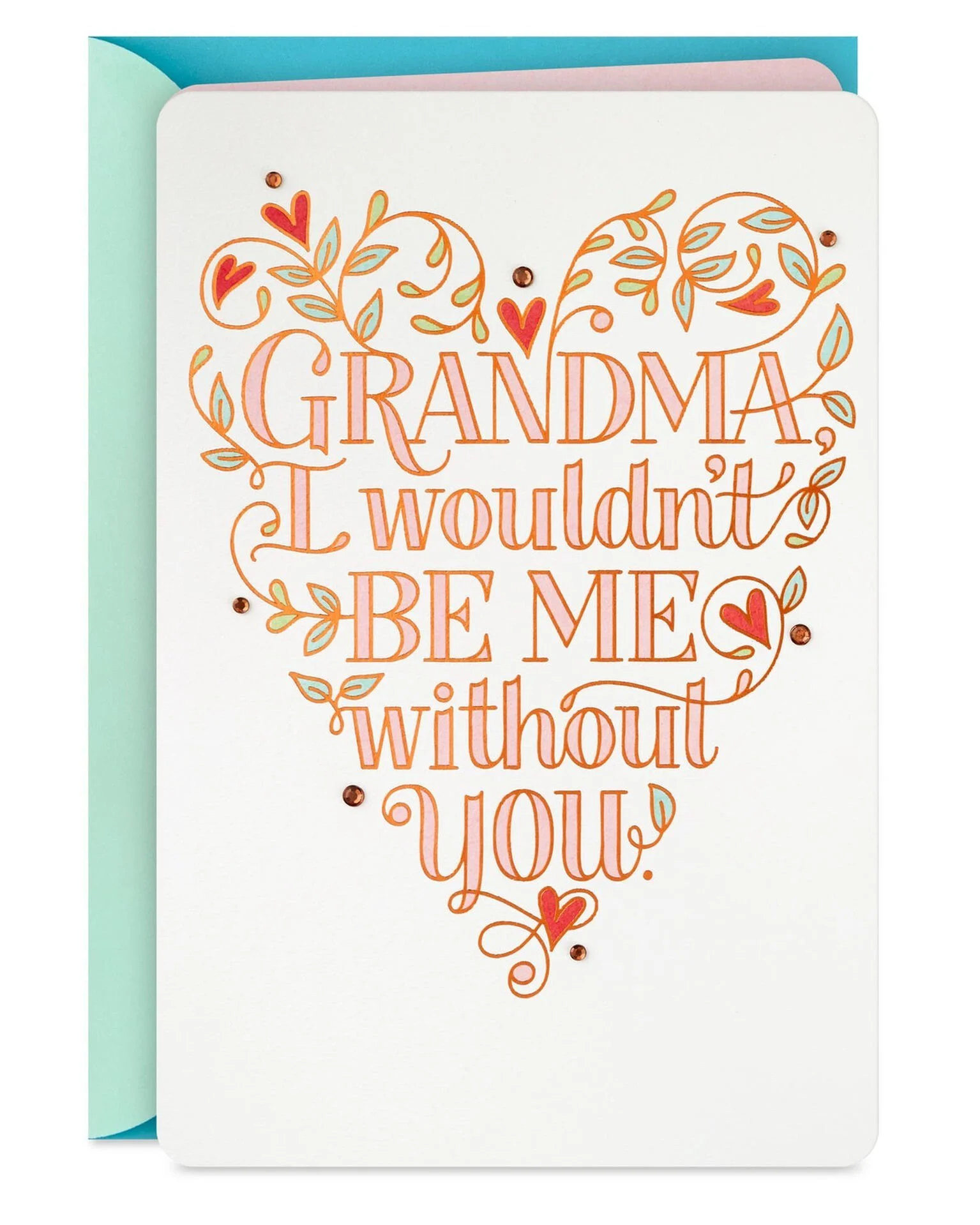
Happy Mother’s Day! I’m so grateful that I was able to celebrate with lots of moms in my life, and being Grant’s mom is the most special. This lettering I created for Hallmark really says it best:
Mother’s Day is this Sunday (my second!) and I always love seeing my lettering applied to Mother’s Day cards. I’m looking forward to celebrating all the moms in my life this weekend!
I love how this Grandma lettering turned out for Hallmark Mother’s Day this year!
This year I will get to celebrate my first Mother’s Day as a mom so I couldn’t help but take a peek a bit early at what Hallmark gifts incorporated my lettering this year. I loved working on these casual script lettering styles for the My Mother’s Garden book and this cute frame!